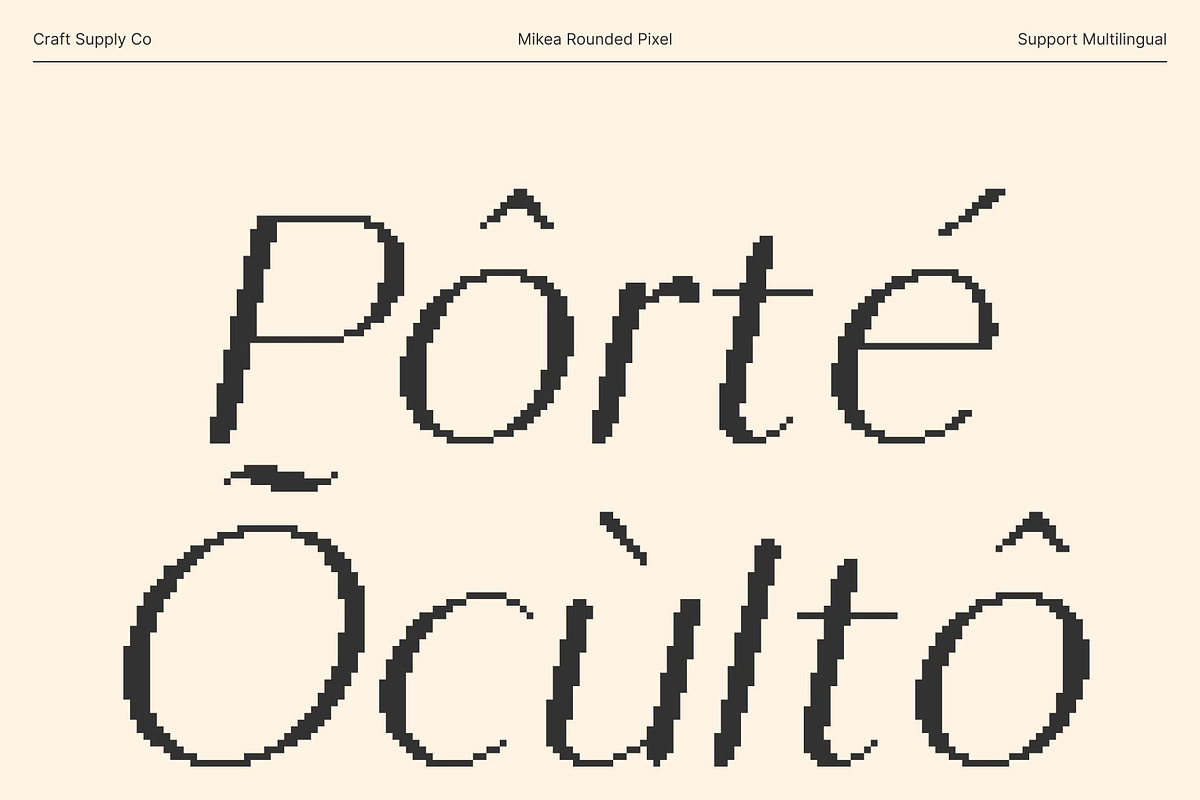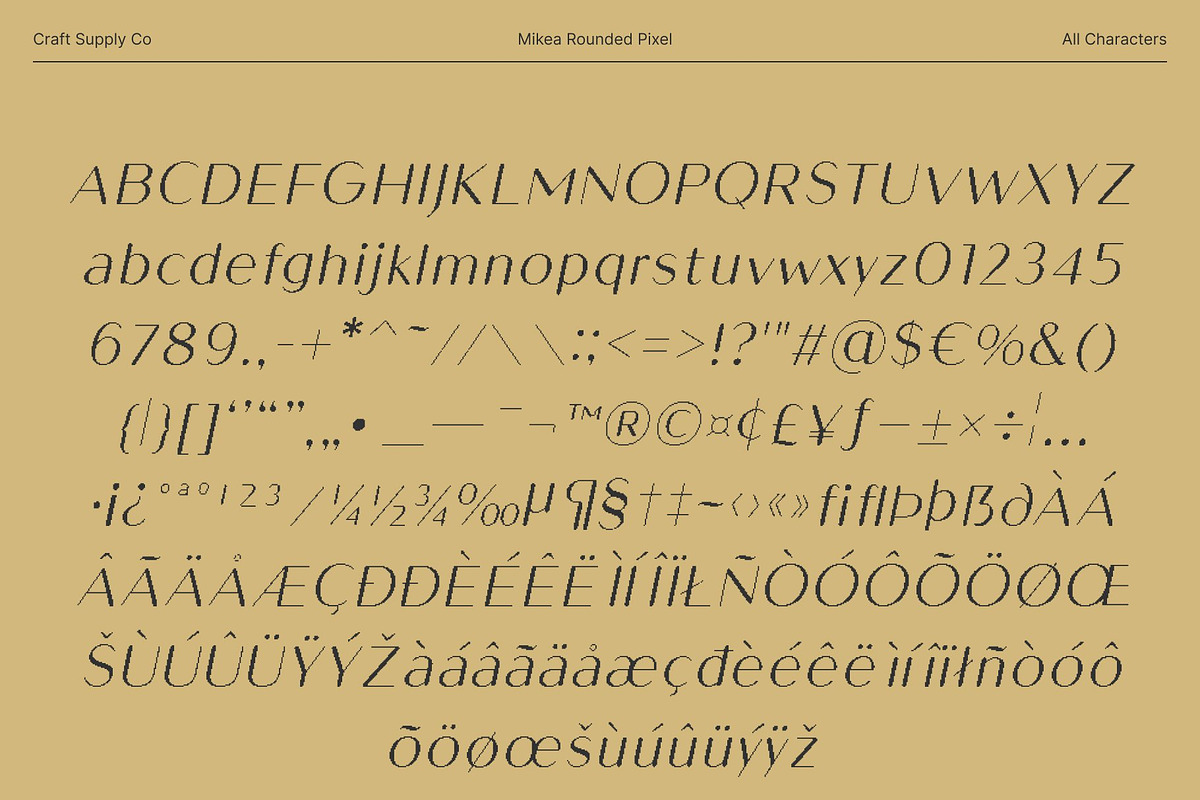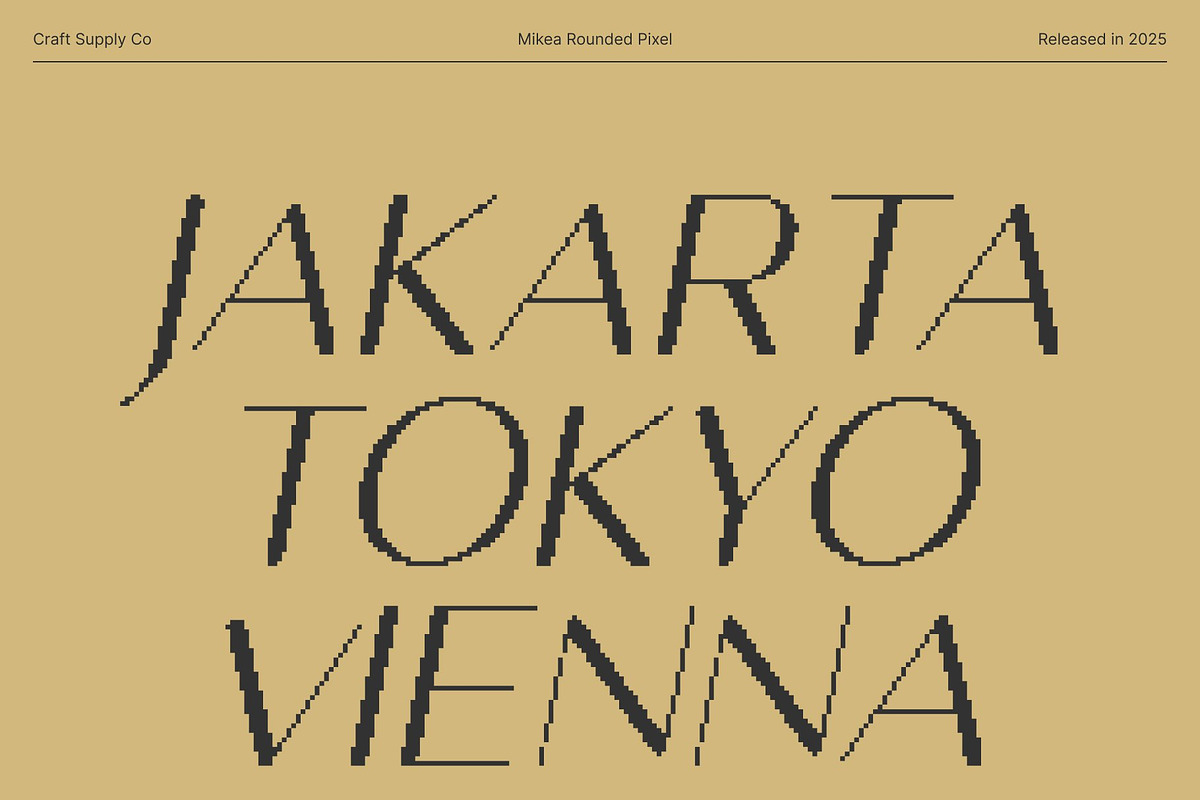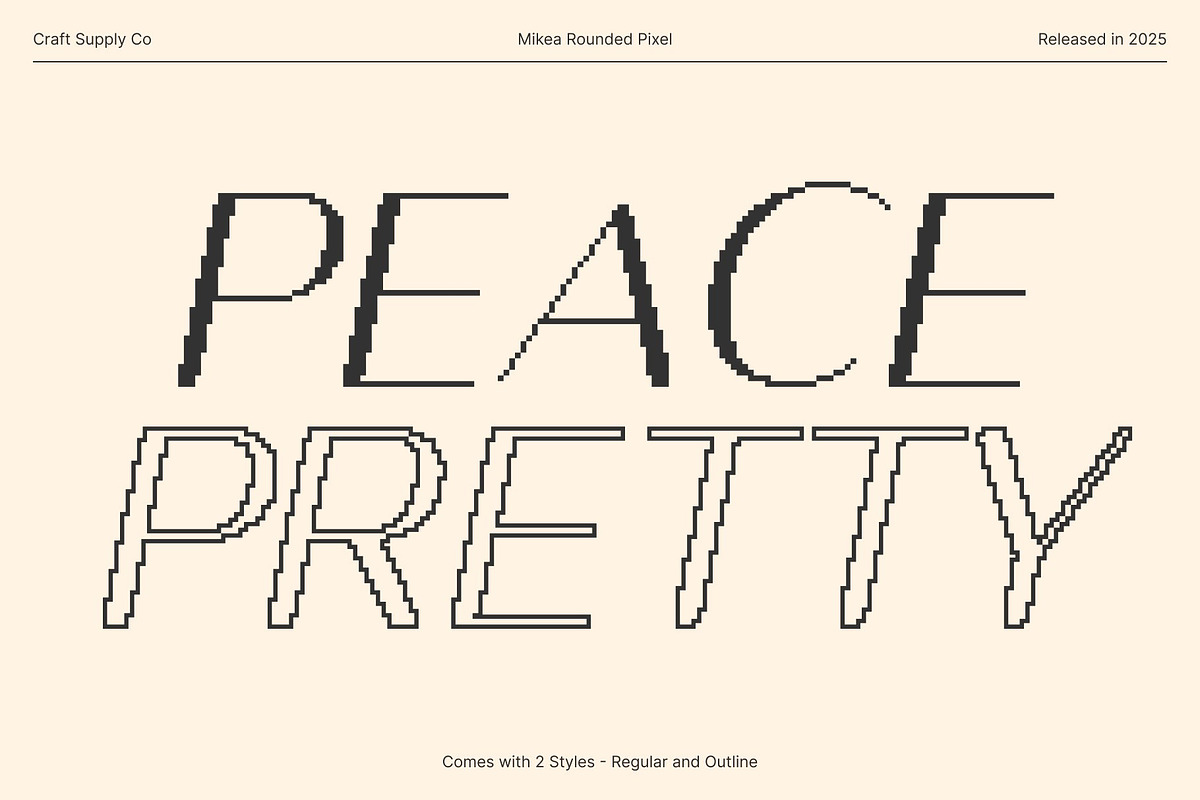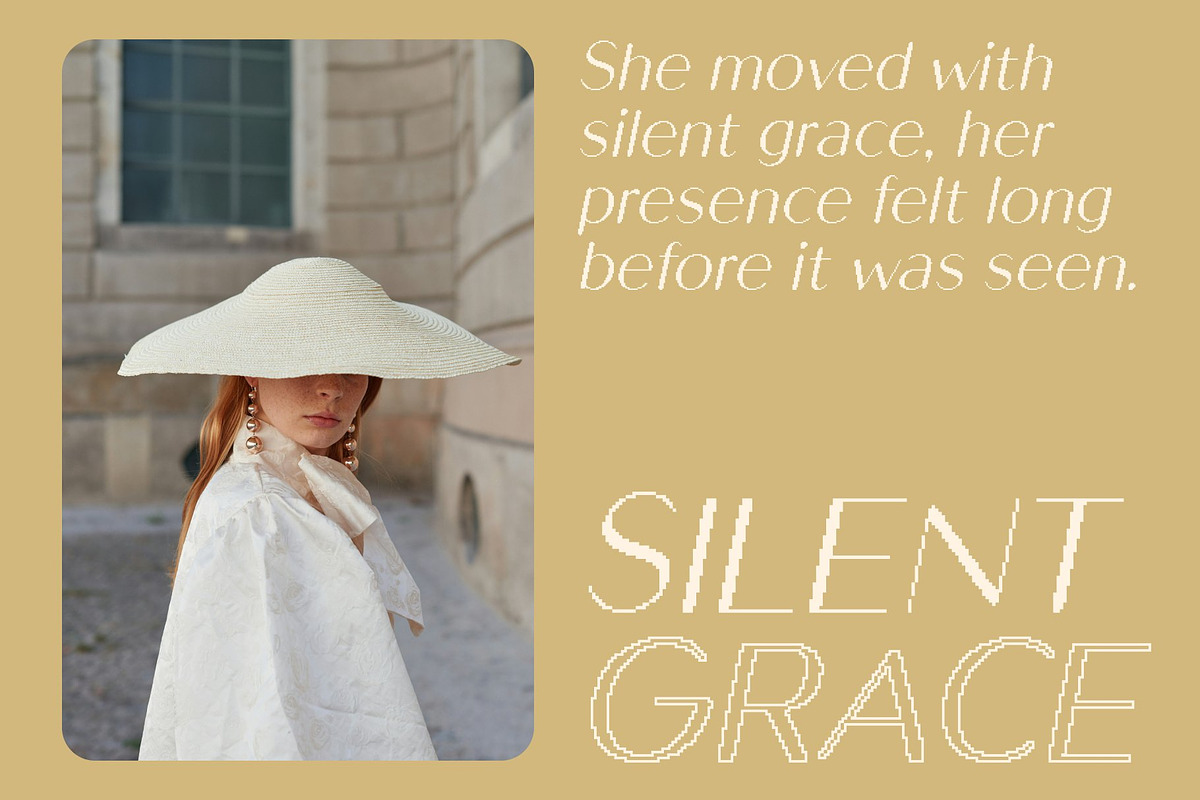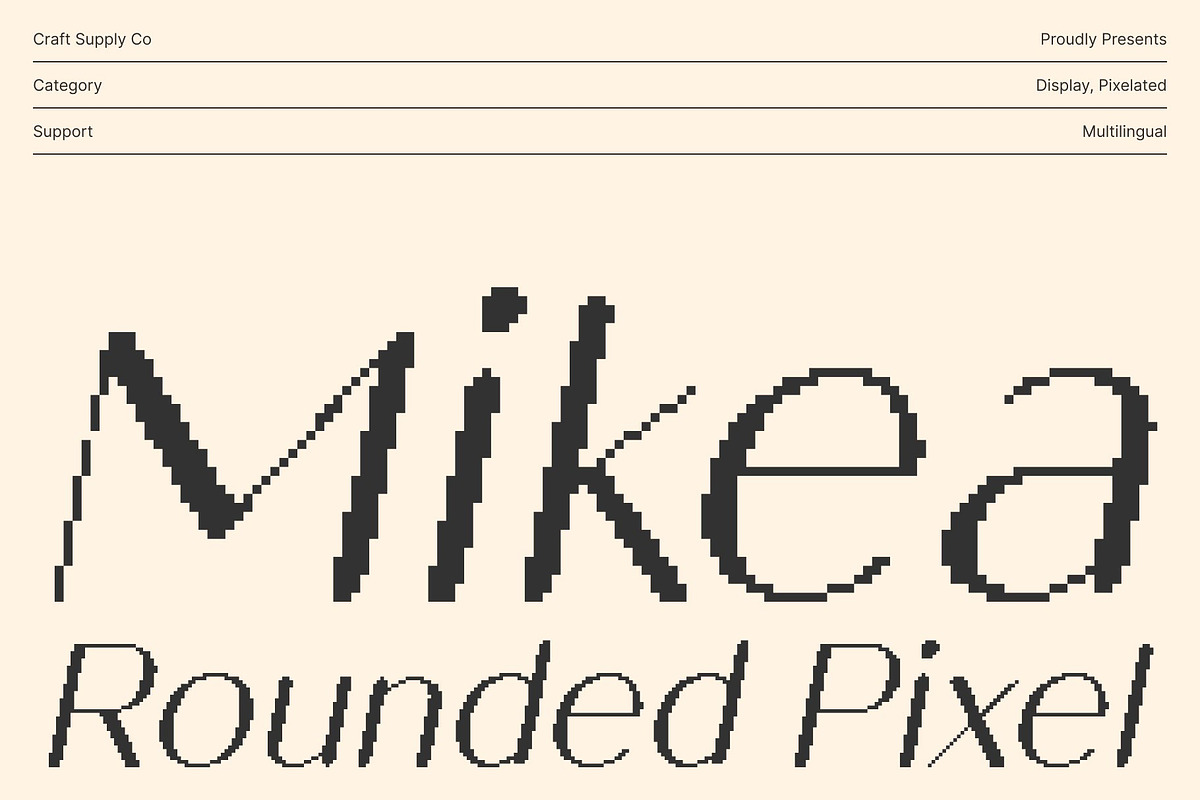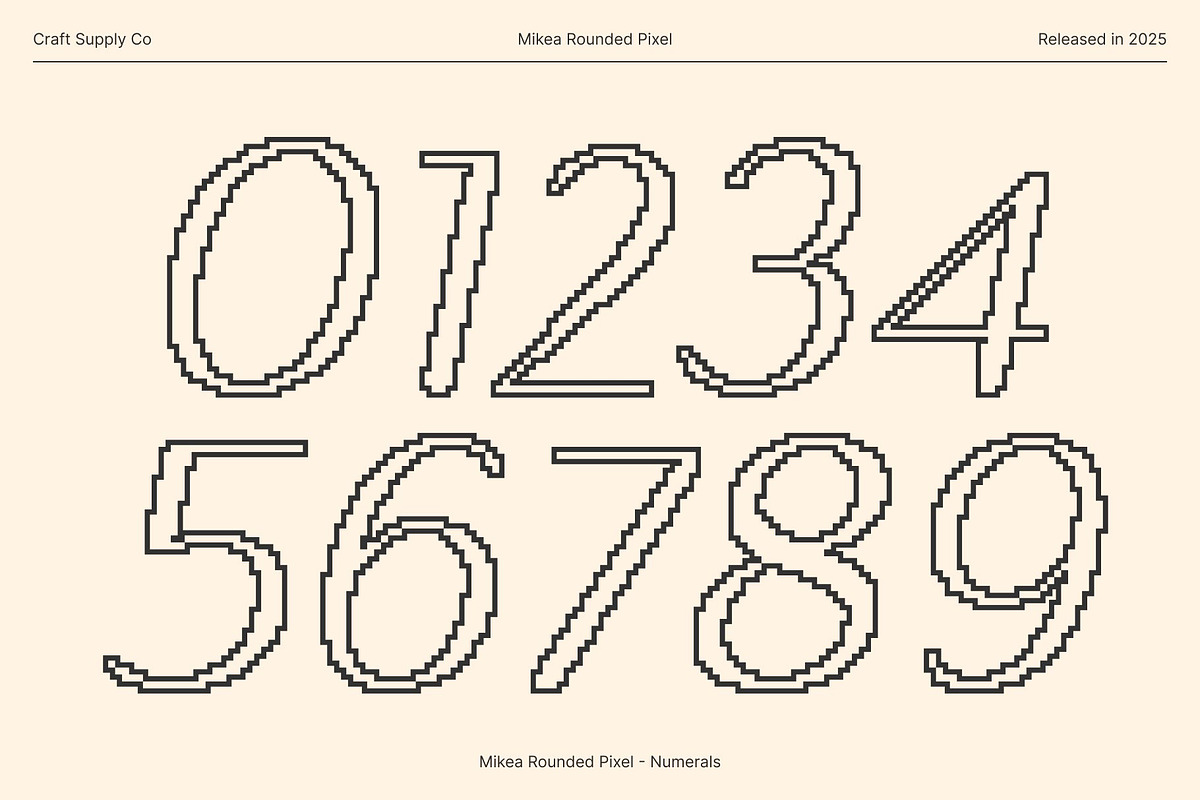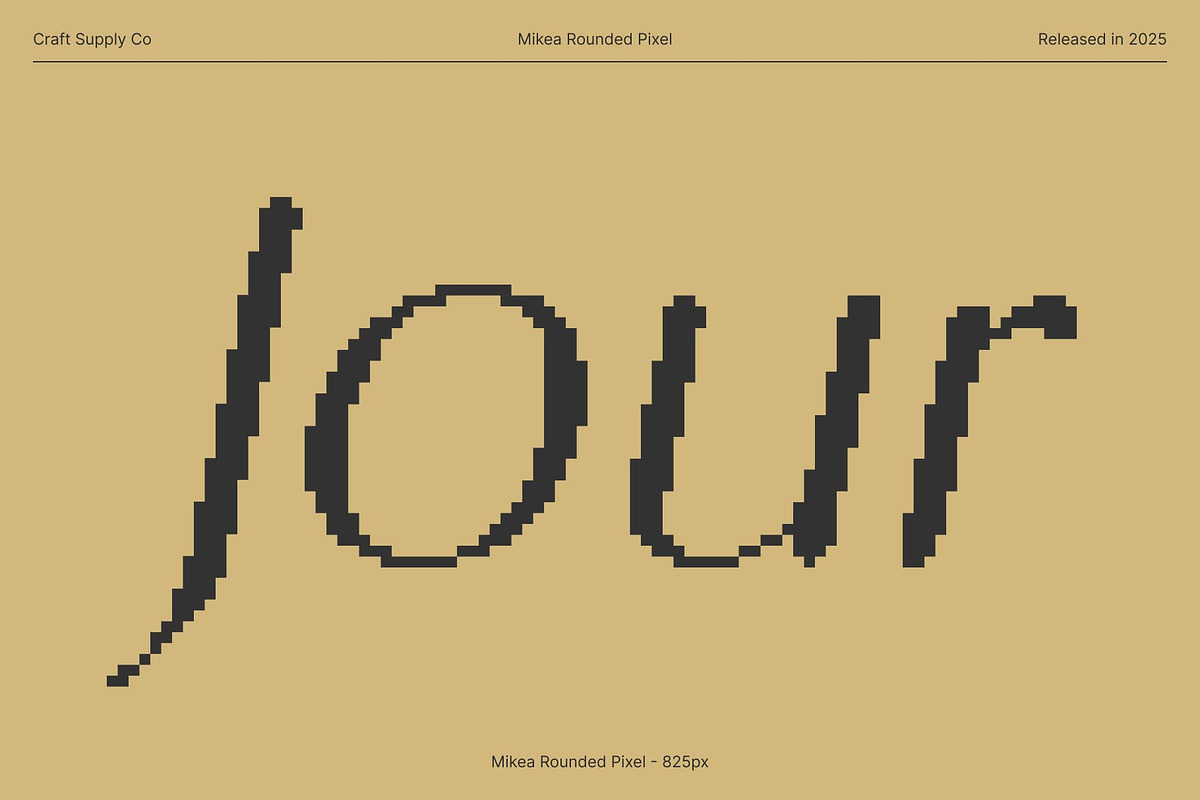
Mikea Rounded Pixel
Mikea Rounded Pixel – Luxury Sans Serif Display Font with Pixel Precision
Polished and Refined for Sophisticated Designs This is a luxury sans serif display font crafted to convey elegance, exclusivity, and refined sophistication. Its clean, smooth lines and perfectly balanced proportions create a polished visual presence, making it ideal for high-end branding, editorial layouts, and premium product packaging.
Pixel Style for Modern Digital Personality Enhanced with a pixel-inspired style, this font merges classic luxury aesthetics with contemporary digital design. The pixel detailing adds a modern, tech-forward edge, giving your typography a distinctive personality while preserving clarity and elegance. This combination makes it perfect for projects that require a balance of tradition and innovation.
Rounded Forms for Approachability and Versatility The soft rounded terminals provide a friendly, approachable feel without compromising the font’s premium quality. These subtle curves increase versatility, allowing this font to perform beautifully in both print and digital environments, from sophisticated logos to high-end digital branding campaigns.
Perfect for High-End Branding, Editorials, and Digital Design This font is ideal for designers seeking to combine luxury with modern digital appeal. Use it for premium branding, editorial layouts, product packaging, and digital campaigns where exclusivity and clarity are key. Its refined forms, rounded edges, and pixel-inspired details ensure your design communicates sophistication, professionalism, and contemporary elegance.